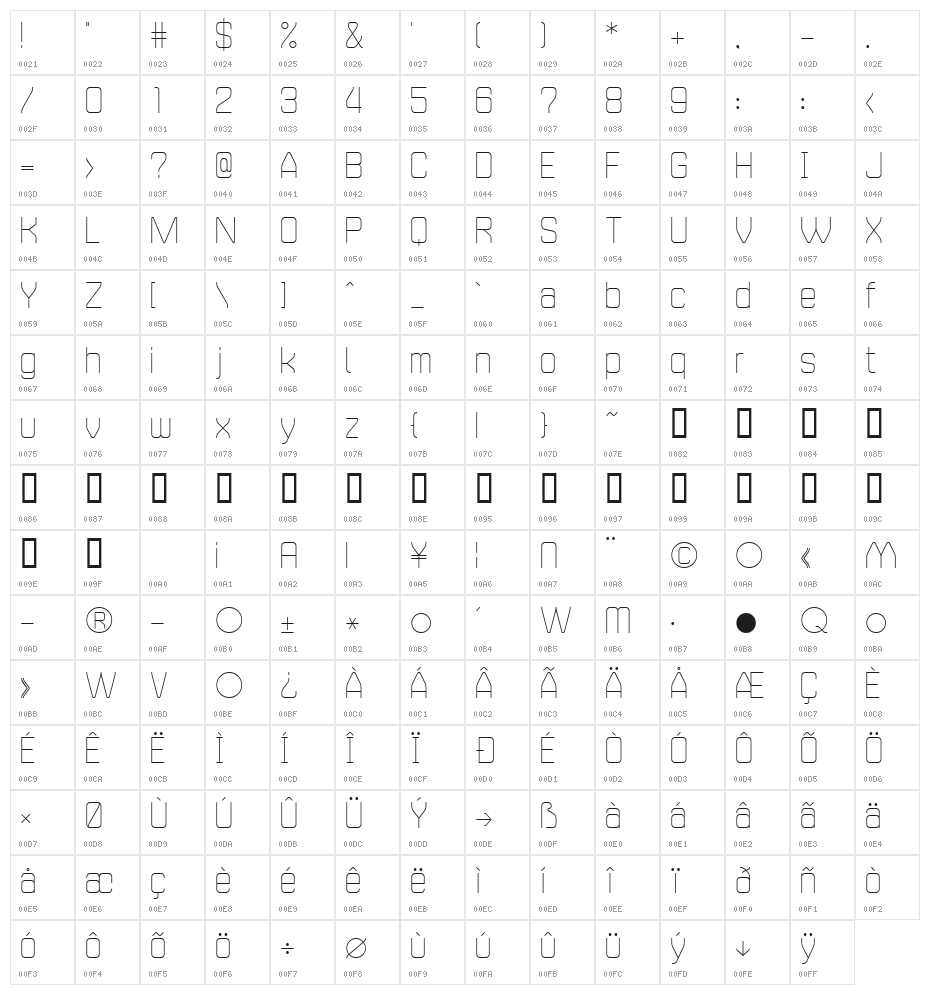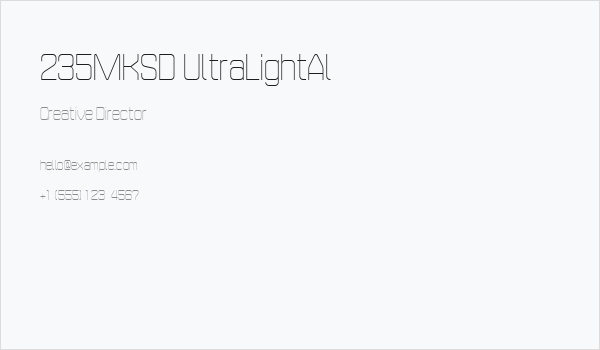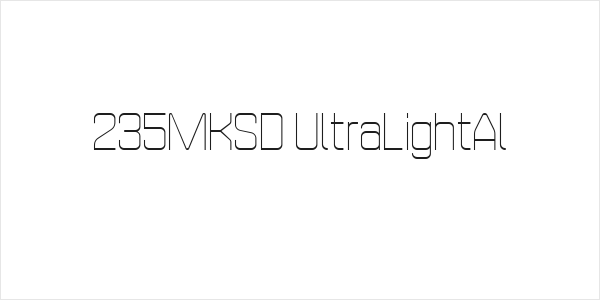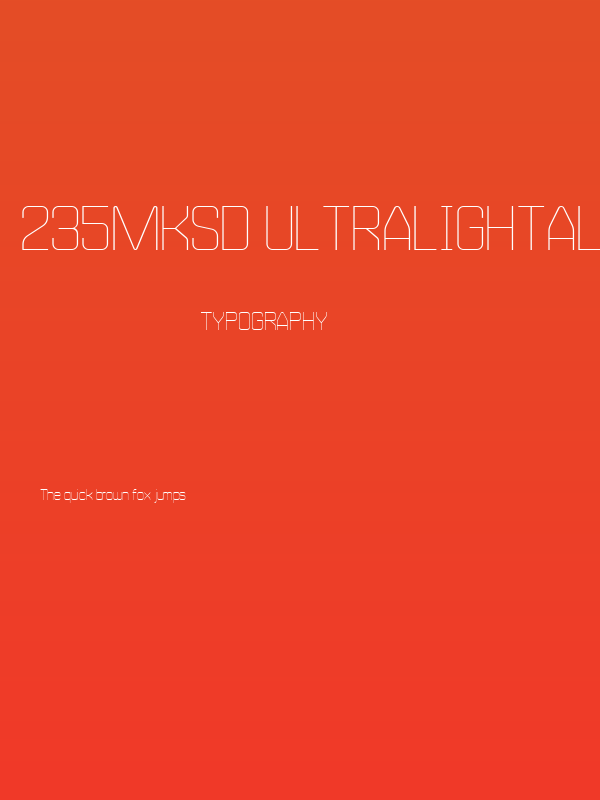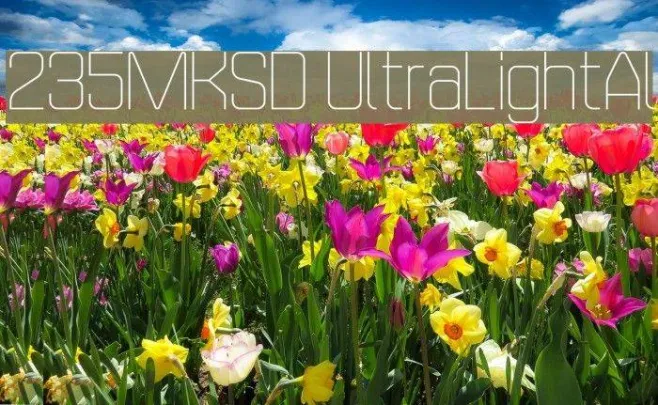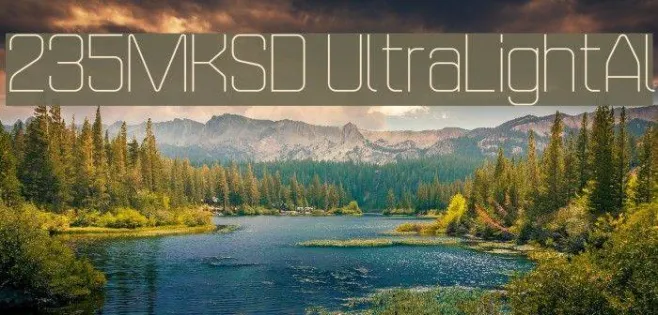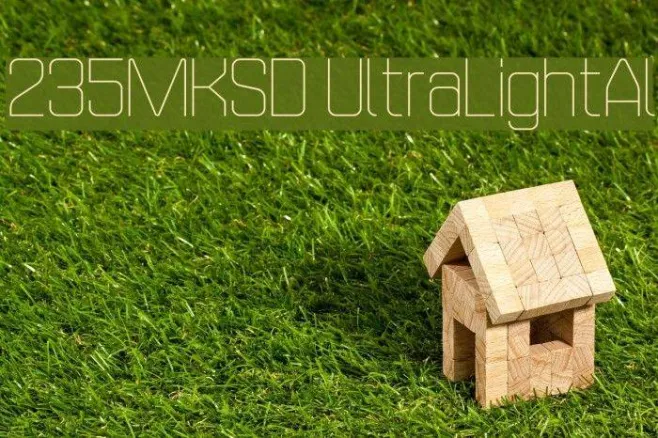
235MKSD UltraLightAl Font
235MKSD UltraLightAl Description
This font features a sleek, ultra-light design with a modern and minimalistic aesthetic. The characters are composed of thin, uniform lines that give it an airy and open feel. Its geometric structure is evident in the consistent height and width of the letters, creating a harmonious and balanced appearance. The uppercase letters are angular and sharp, while the lowercase letters maintain a similar geometric style with slightly softer edges. The numerals and special characters follow the same design principles, ensuring a cohesive look across all elements. This font's simplicity and clarity make it highly legible, even at smaller sizes.
| Proposed Projects | Ideal for tech branding, minimalist posters, modern web design, and clean editorial layouts. |